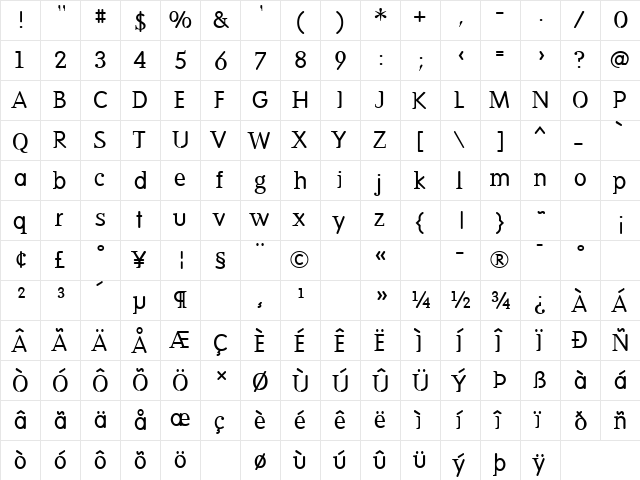
Dead History
Dead is a composed and adaptable typeface that performs quietly and consistently across a wide range of design contexts.
Pro Tip: Pair Dead with a font of contrasting weight or personality to build a more expressive typographic hierarchy.